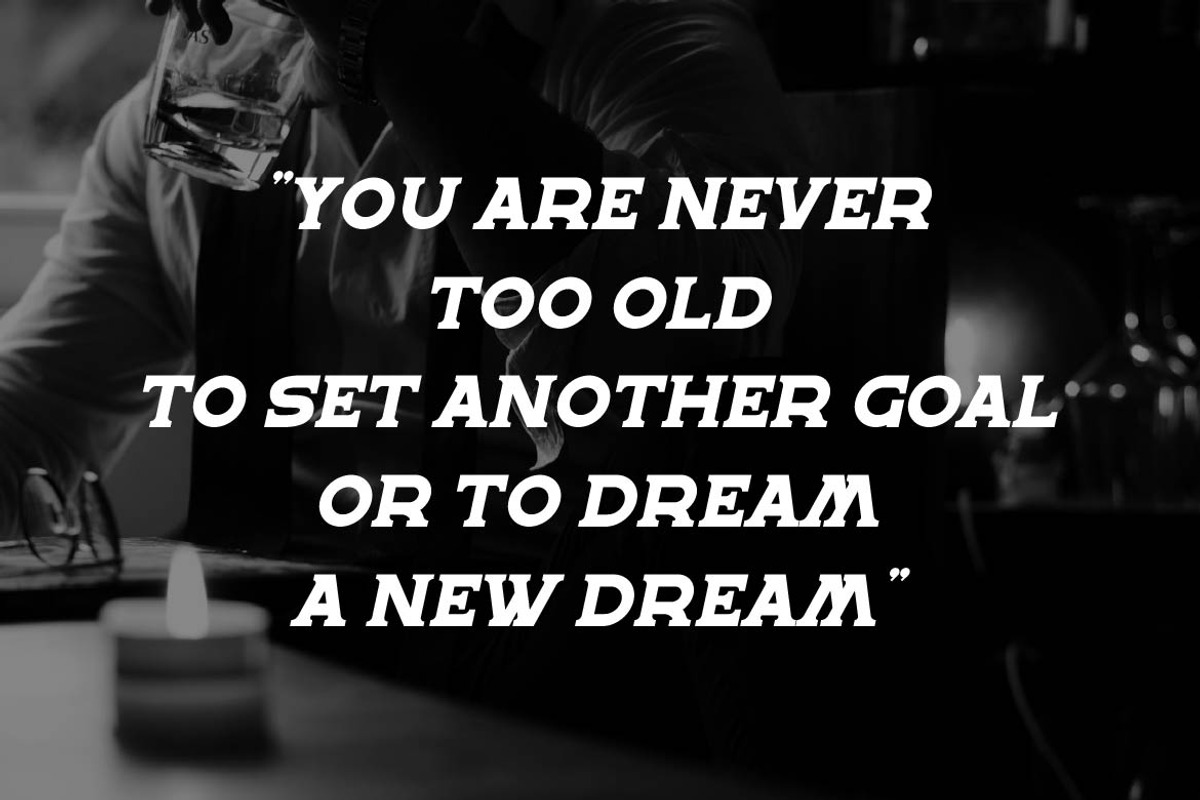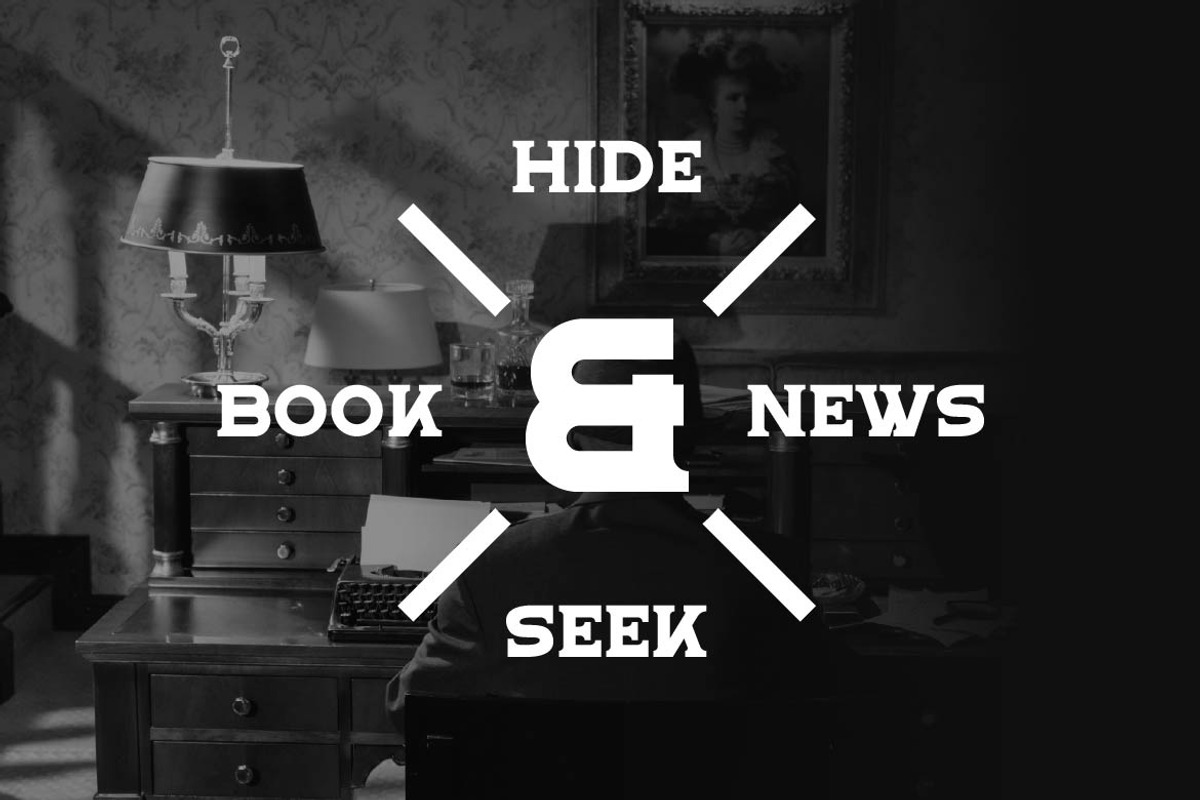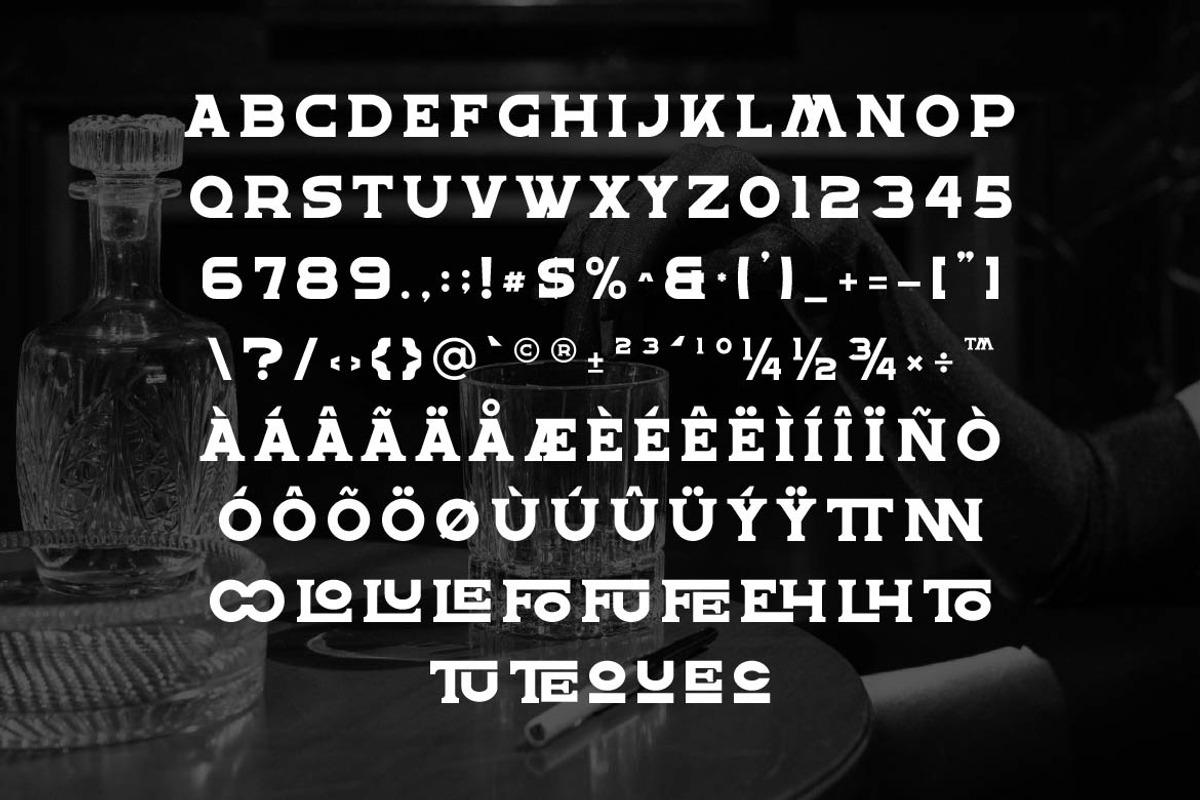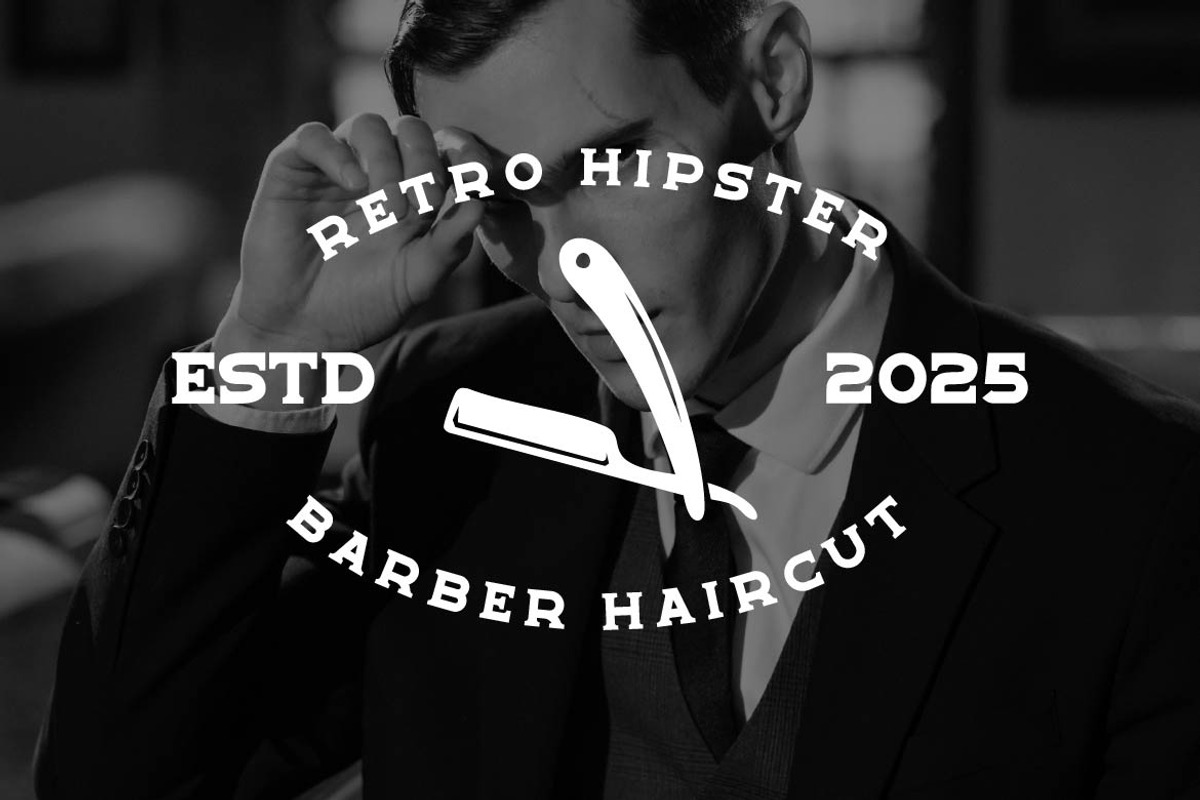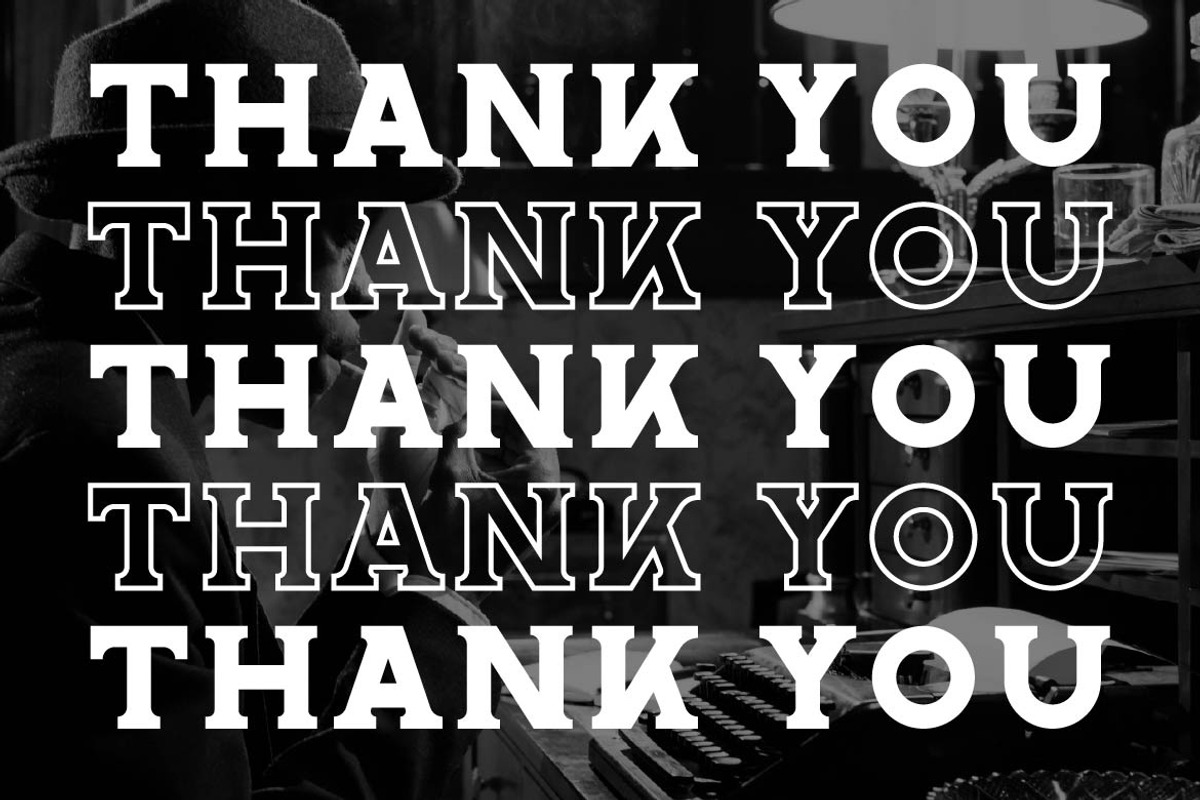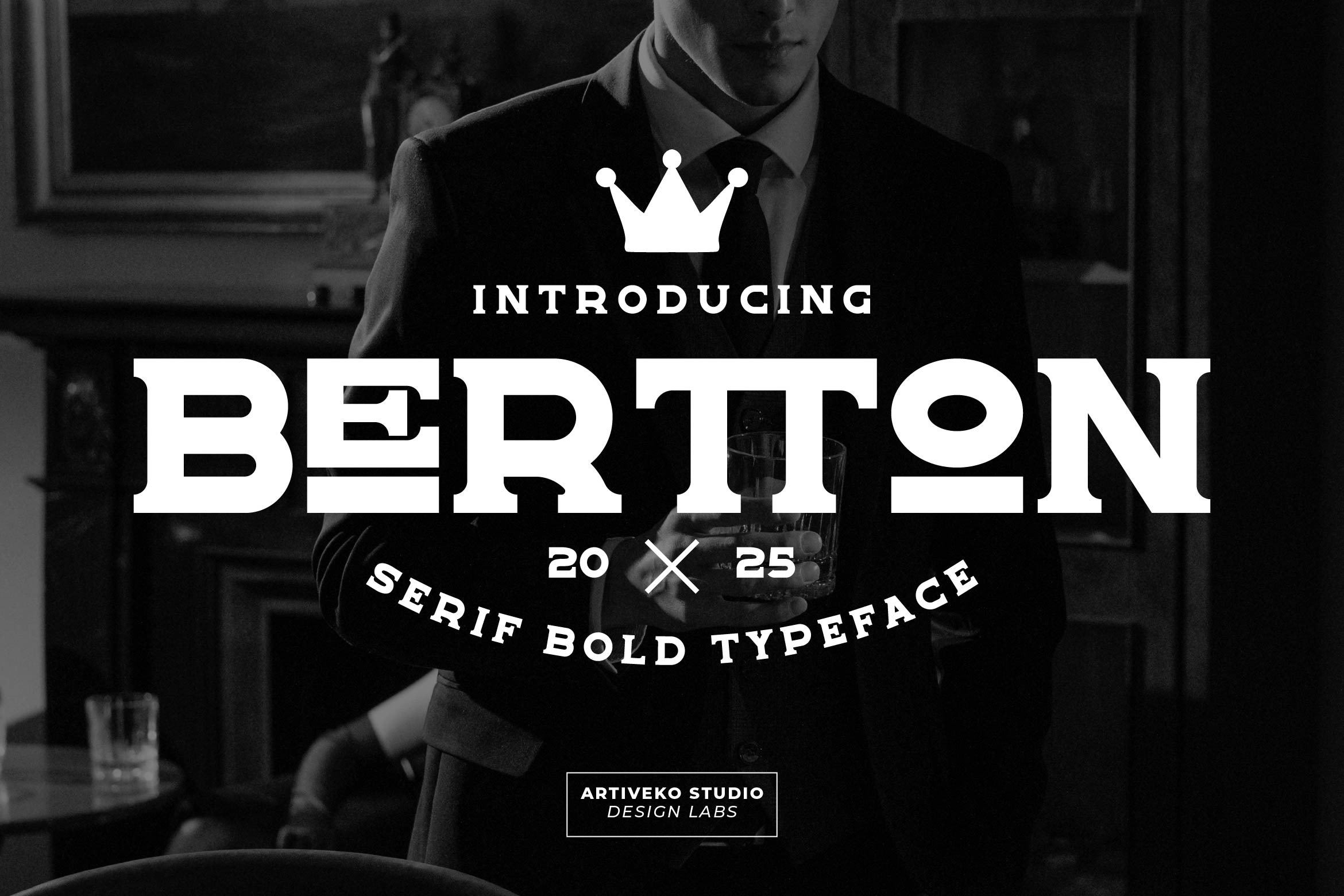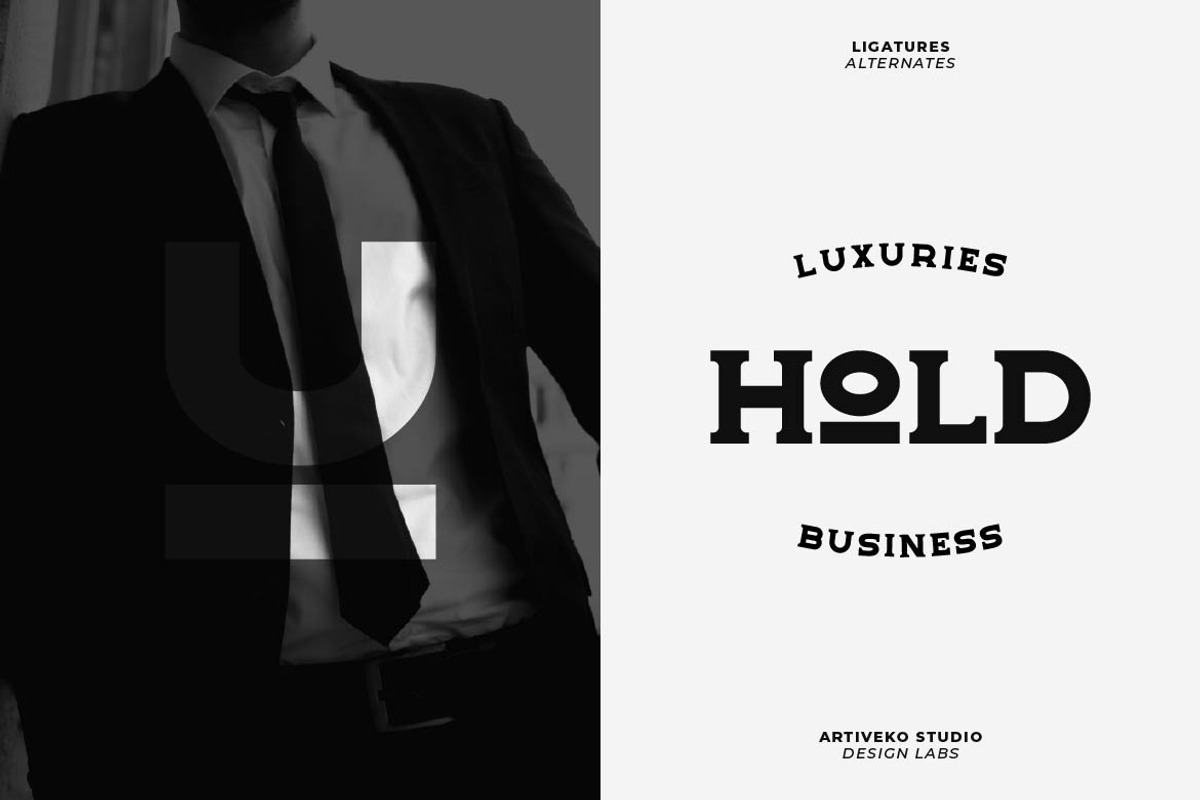
Bertton Vintage Retro Font
Bertton is a classic serif font inspired by vintage typography and traditional craftsmanship. Featuring bold serifs, balanced proportions, and subtle retro detailing, Bertton brings an authentic old-world feel to your designs. Perfect for branding, packaging, editorial headlines, signage, posters, and café or bar identities, it delivers character and nostalgia in every letter.